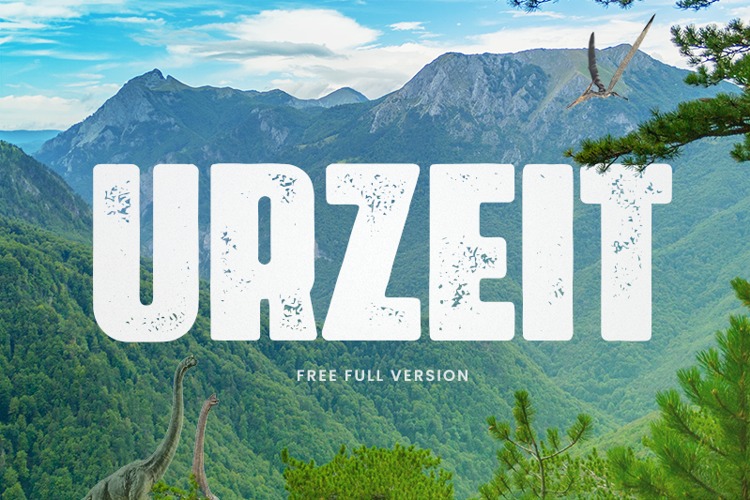
Urzeit Font
Urzeit Display Font
It’s a standout bold font with rough and stamp version. The texture of the font makes this font looks great for retro and vintage theme. This font is also suitable to be applied especially in logo, and the other various formal forms such as invitations, labels, logos, magazines, books, greeting / wedding cards, packaging, fashion, make up, stationery, novels, labels or any type of advertising purpose.
Its original smoothness and rounded edges are now presented with a dirty, rough and vintage look, which gives the font a completely new character and the true feeling of a million year old font discovery. Just like its predecessor you can still use the font for logos, headline or bold statements and it’s always an eye-catcher. And of course you can still get the clean original version @ www.shapedfonts.com/caps